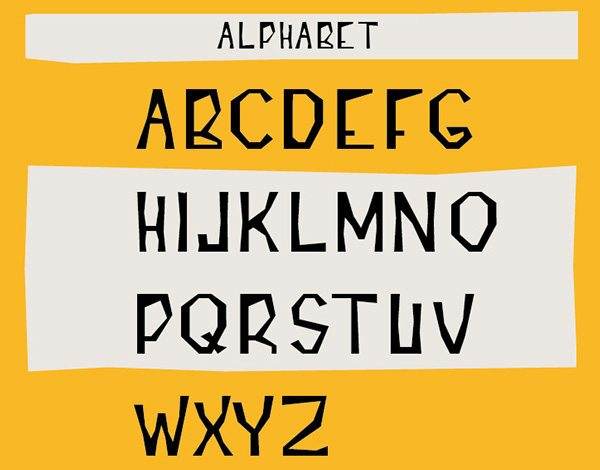
Incise
Font designed for the book cover of “Le Cinque Sorelle Chouettes”, a children’s book which I illustrated. The name “InciseFont” refers to the cuttings on the letters, whose clean-cut lines lend them a sharp-cornered shapes if they were incised. Incisefont is a free font made for headlines, and it also can be used for illustrations, posters or flyers.